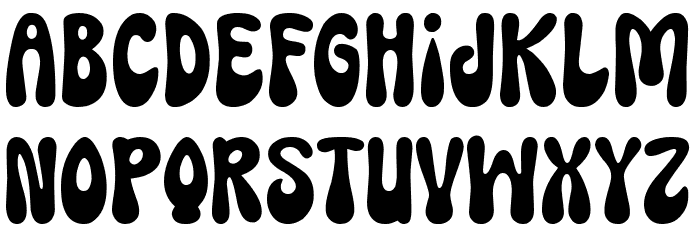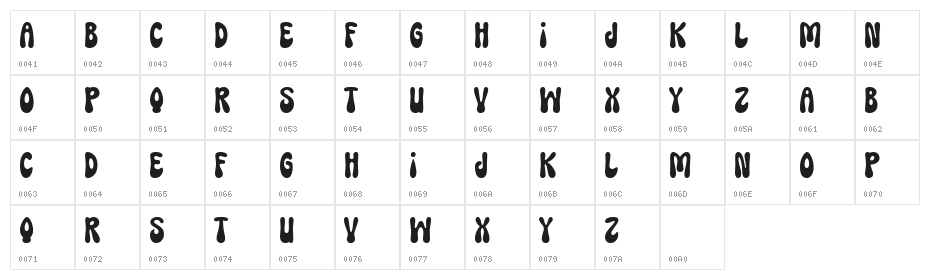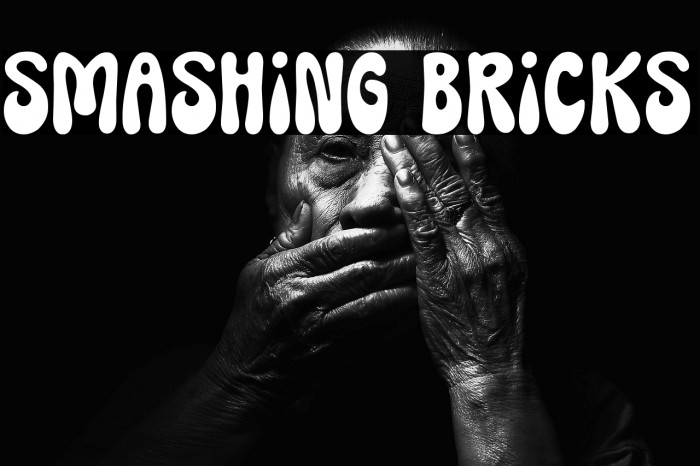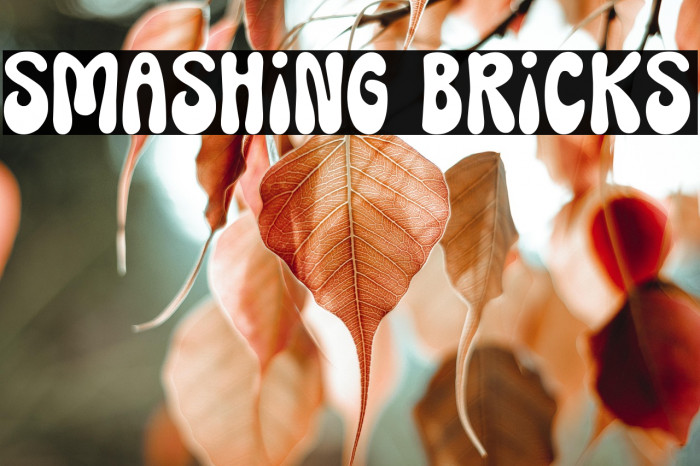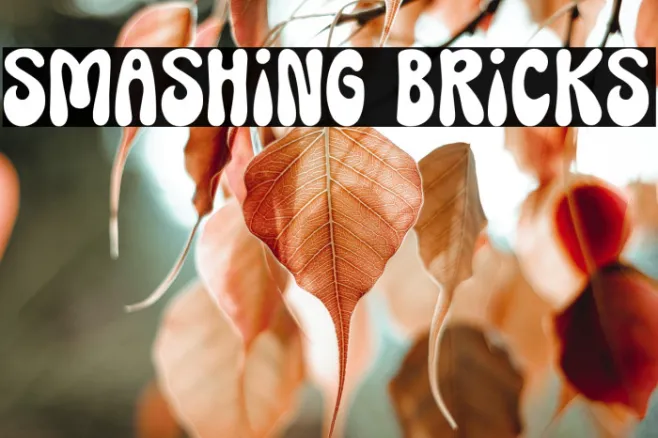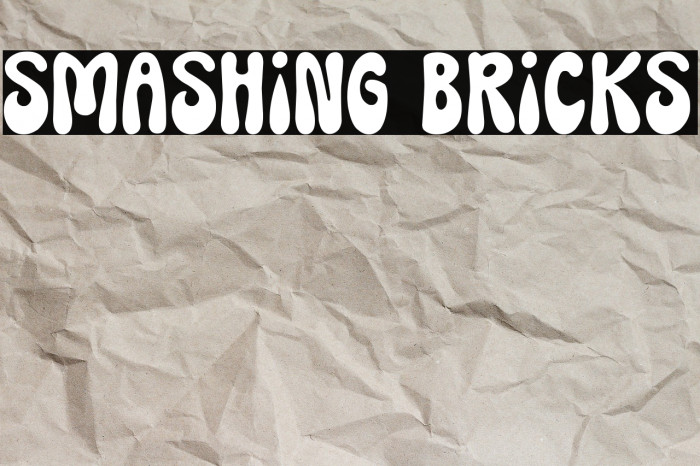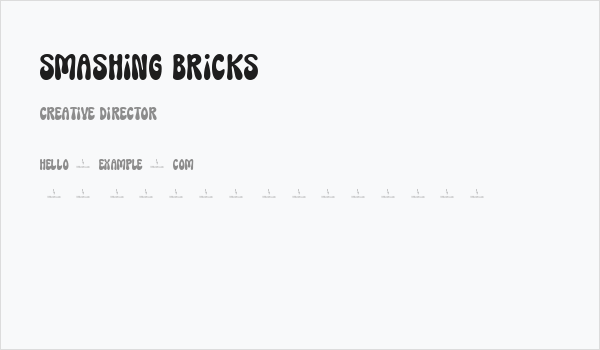
Smashing Bricks Font
Smashing Bricks Description
This font features a playful and bold design with thick, rounded strokes that give it a bubbly and dynamic appearance. The characters are uniquely shaped with a sense of movement, making them stand out with a whimsical charm. The overall look is reminiscent of retro or psychedelic styles, with a modern twist that adds a fresh and lively touch. The letters are evenly spaced, ensuring readability while maintaining their quirky aesthetic. This font is perfect for projects that require a fun and engaging visual element.
| Overall Style | Playful, Retro, Modern |
| Proposed Projects | Ideal for children's books, playful branding, event posters, and creative packaging. |